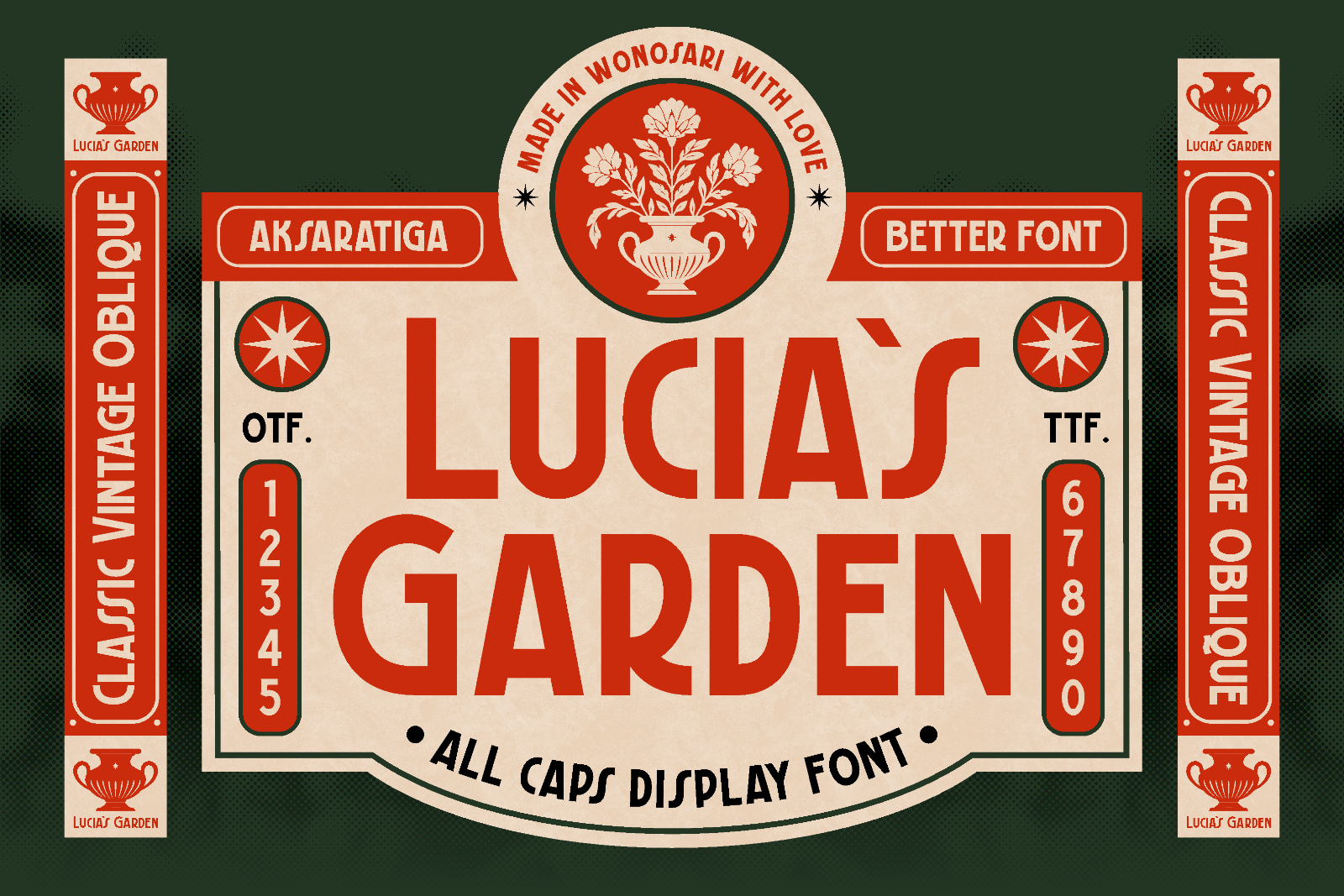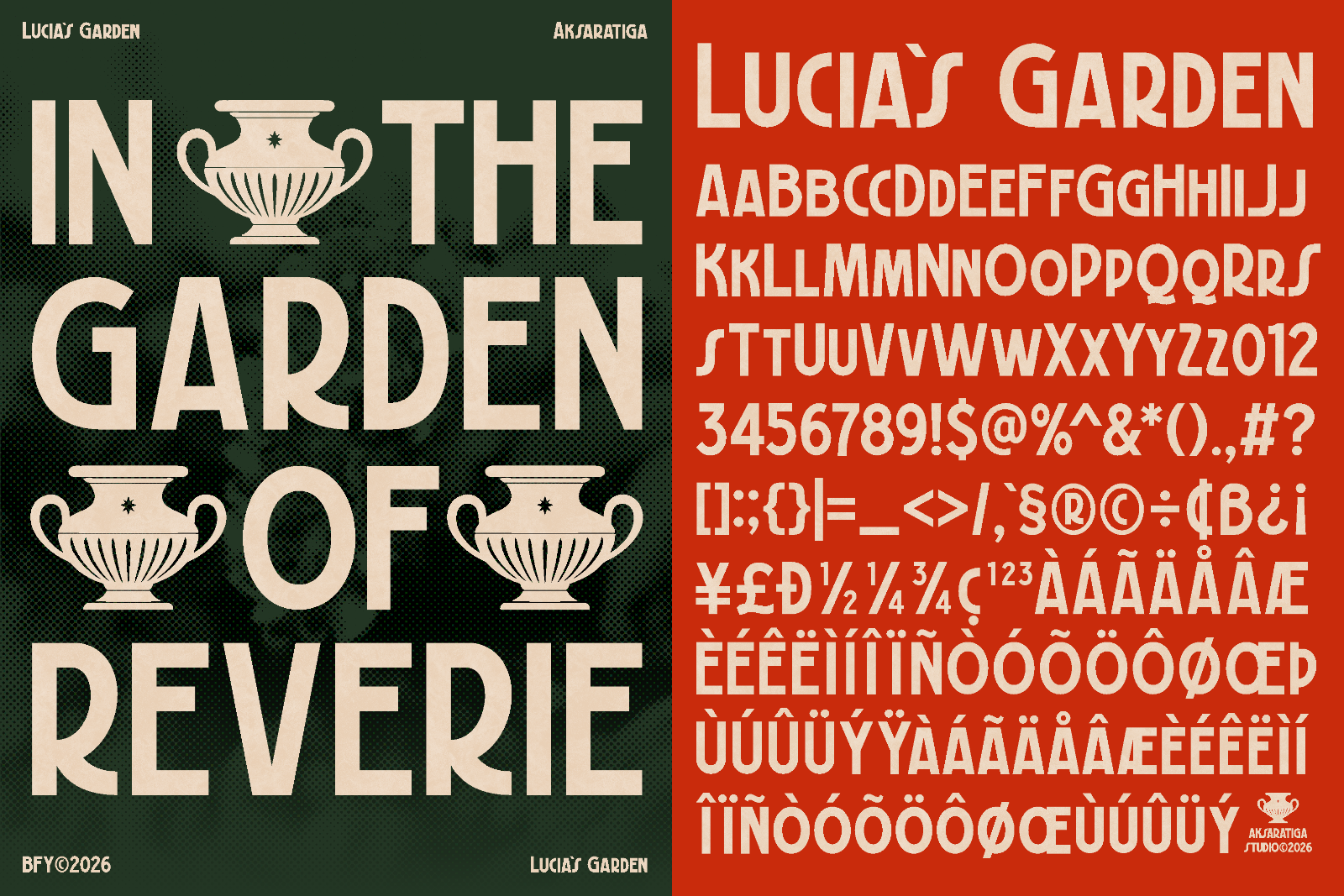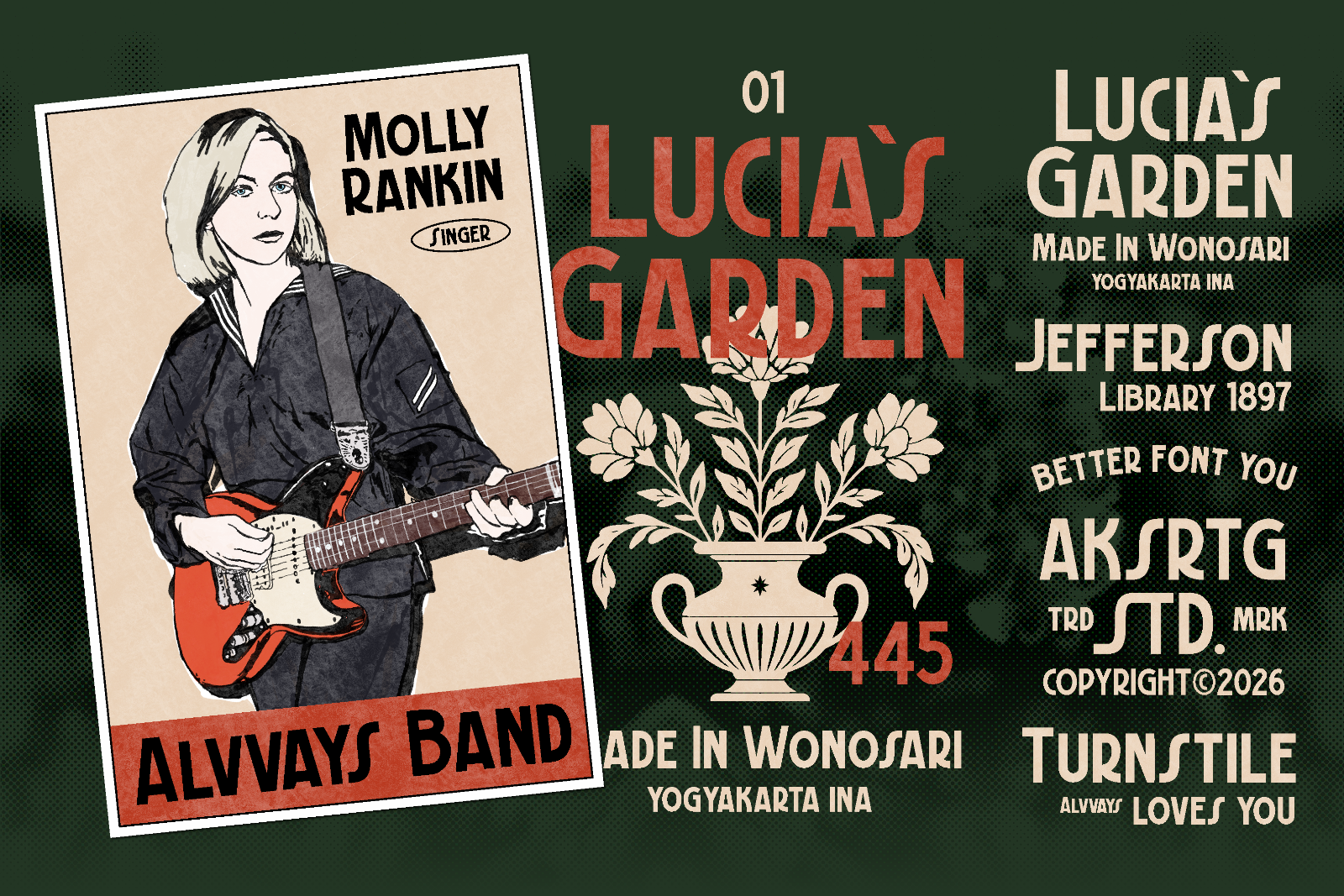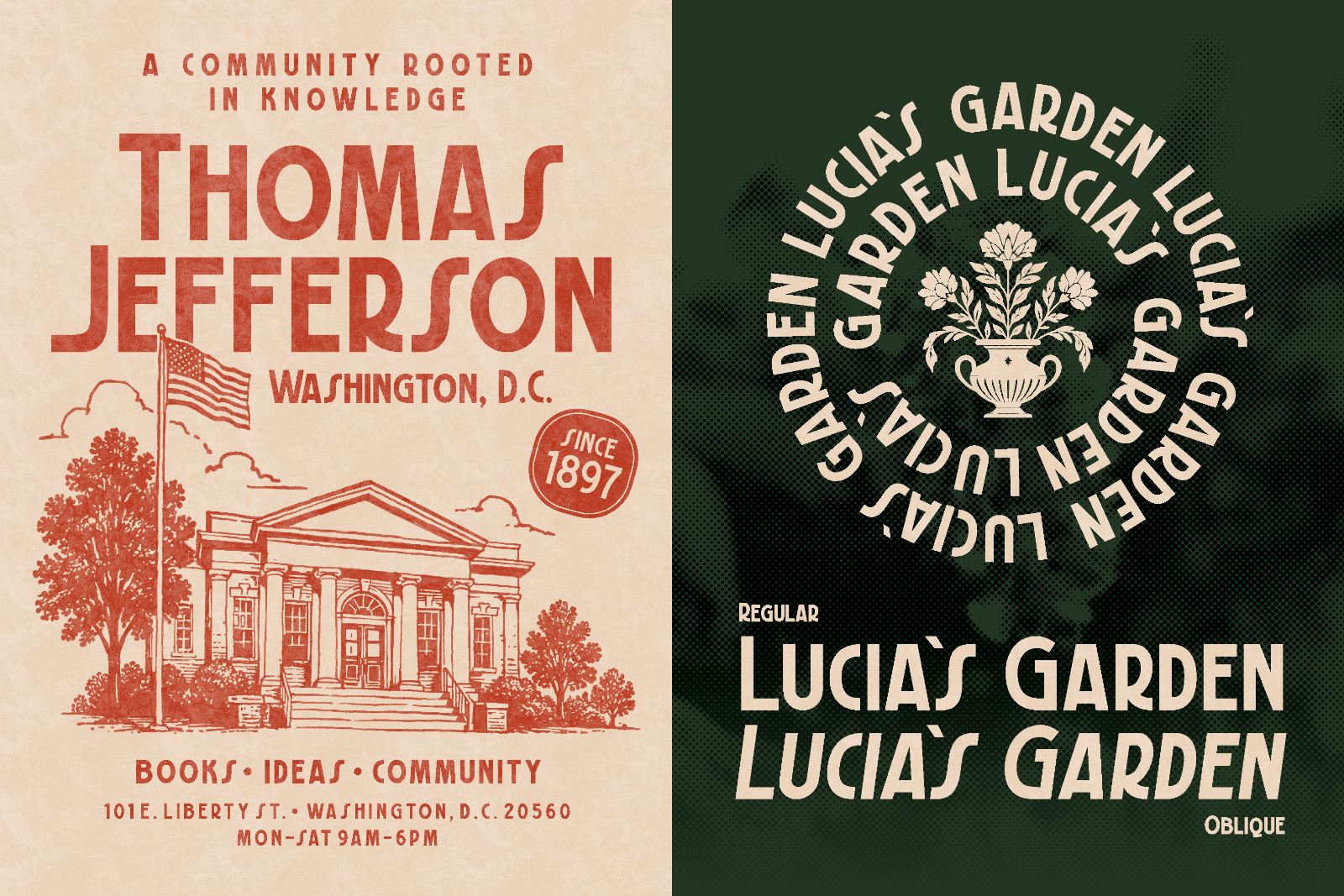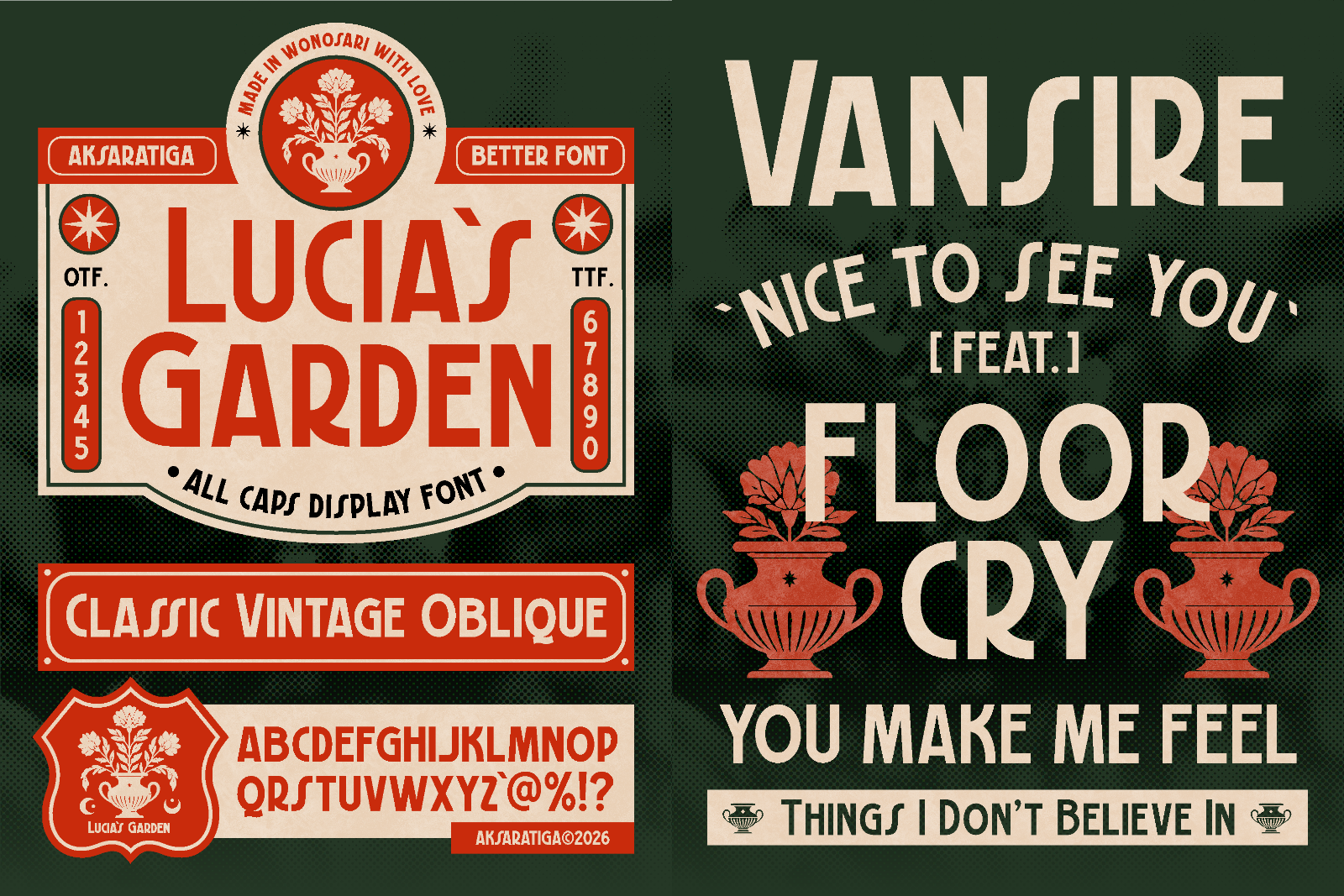
Lucia’s Garden is a classic vintage display typeface by Aksaratiga Studio, inspired by old garden labels, vintage American signage, botanical ornaments, and nostalgic packaging. With bold all-caps letterforms and a distinctive retro character, Lucia’s Garden is designed for brands, posters, packaging, apparel, logos, labels, and headlines that need a strong vintage personality.
Classic. Vintage. Timeless